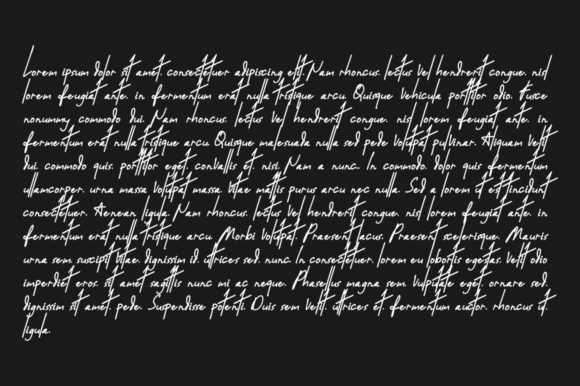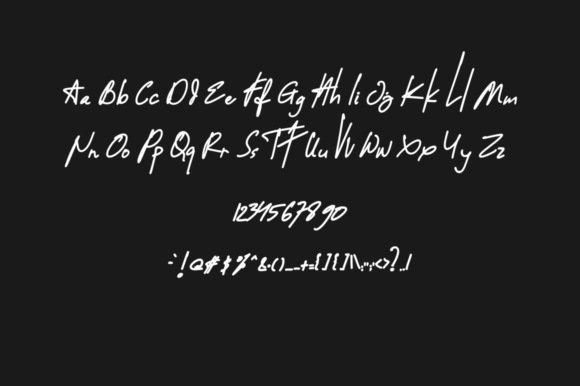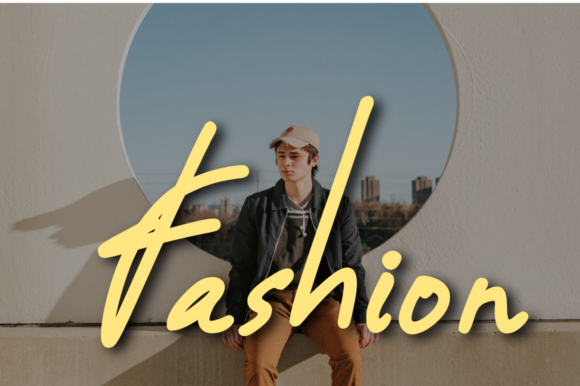
Introduction to Hiraka Font
As a designer, have you ever stumbled upon the perfect font that instantly elevates your creative project? For me, that moment came when I discovered the Hiraka Font. Its strong and authentic script exudes a powerful vibe that’s hard to resist. Whether you’re working on a high-quality design or a simple yet elegant layout, Hiraka Font is the perfect design resource to give your work that extra oomph.
What sets Hiraka Font apart from other design elements is its versatility. With a transparent background, you can easily integrate it into your design without worrying about visual clutter. And the best part? It’s available for free download, making it an invaluable resource for designers of all levels.
So, what makes Hiraka Font so valuable for designers like you and me? In this article, we’ll dive into the world of Hiraka Font and explore its unique features, uses, and benefits. Whether you’re a seasoned pro or just starting out, you’ll learn how to harness the power of Hiraka Font to take your designs to the next level.
Key Features of Hiraka Font
- High-quality design for creative projects: Hiraka Font is a versatile and modern font ideal for various design applications.
- Transparent background: The font features a transparent background, making it perfect for designs where a subtle, non-distracting look is desired.
- Unique characteristics: The font features a unique blend of modern and traditional elements, making it perfect for designs that require a touch of elegance and sophistication.
- Perfect for digital and print designs: Hiraka Font is suitable for both digital and print designs, including logos, graphics, and typography.
Honest Review: Hiraka Font
I recently had the chance to work with the Hiraka Font for a creative project, and I must say it’s been a game-changer. As a designer, I’m always on the lookout for high-quality design resources that can elevate my work, and the Hiraka Font certainly delivers.
What works well: ✨ The Hiraka Font is incredibly versatile, suitable for a wide range of creative projects, from logos to packaging design. The font’s unique blend of traditional and modern elements makes it a great addition to any design resource library. The free download option is also a major plus, as it allows designers to experiment with the font without breaking the bank.
One thing to note: ⚠️ The Hiraka Font has a transparent background, which can sometimes make it difficult to read on certain backgrounds. However, this is a minor issue that can be easily mitigated by using a colored background or adjusting the font’s opacity.
In terms of overall impression, I’m thoroughly impressed with the Hiraka Font. Its high-quality design and versatility make it a valuable addition to any designer’s toolkit. Whether you’re working on a complex design project or just need a unique font for a personal creative pursuit, the Hiraka Font is definitely worth checking out.
- Perfect for creative projects requiring a unique, high-quality font
- Transparent background may cause readability issues on certain backgrounds
The Hiraka Font is a versatile and high-quality design resource perfect for creative projects that require a unique touch. With its transparent background, this font can be easily integrated into various design tools and software.
Experiment with different font sizes, colors, and styles to achieve the desired look. You can also use the Hiraka Font in combination with other design elements to create a unique visual identity.
The Hiraka Font is perfect for creative projects such as logos, branding, posters, flyers, and social media graphics. It’s also great for designing invitations, menus, and other print materials that require a high-quality and unique font.
Does the Hiraka Font support transparent backgrounds, making it suitable for use on complex design elements?
Yes, the Hiraka Font supports transparent backgrounds, making it an excellent choice for designs that require a high level of customization. This feature allows you to create complex design elements with ease, such as overlays, icons, and graphics with transparent backgrounds.